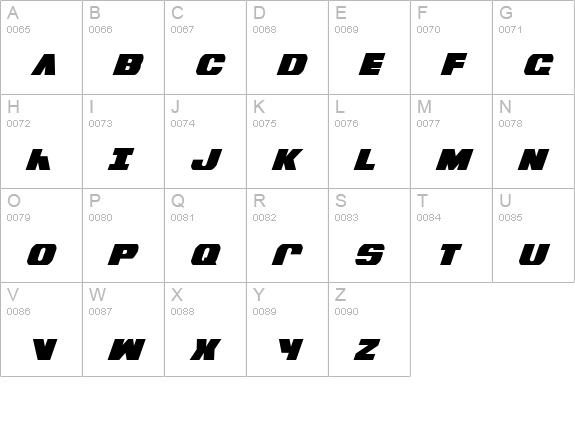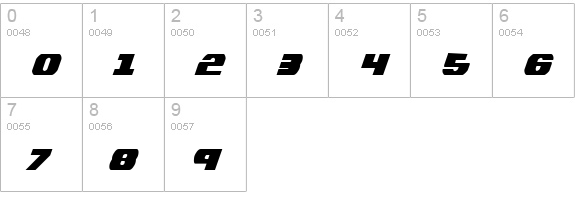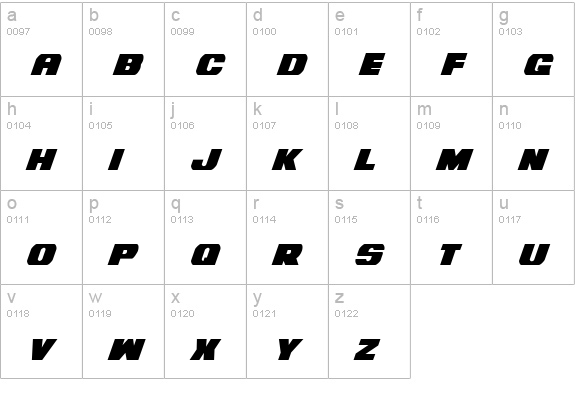
Bummer Condensed Italic is a distinctive, condensed-width, italic variant in the Bummer typeface family \xE2\x80\x94 well suited to design and typography projects.
Bummer Condensed Italic font is a sleek and modern typeface that exudes sophistication and elegance. With its unique italicized style, this font is perfect for adding a touch of class to any design project. The condensed form gives it a contemporary look, making it ideal for use in headings, titles, and branding materials. What makes Bummer Condensed Italic font even more appealing is that it is available for free download at FontsMarket.com. This means you can easily access and use this stylish font in your projects without any cost. Whether you're designing a website, creating a logo, or crafting a social media post, Bummer Condensed Italic font will elevate your designs and make them stand out. Don't miss out on this fantastic opportunity to enhance your creative work with this beautiful typeface. Download it for free today at FontsMarket.com and take your designs to the next level!